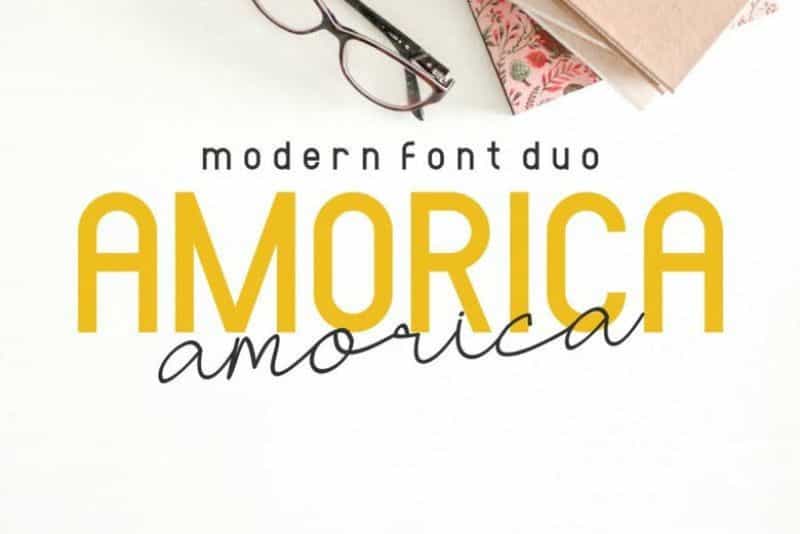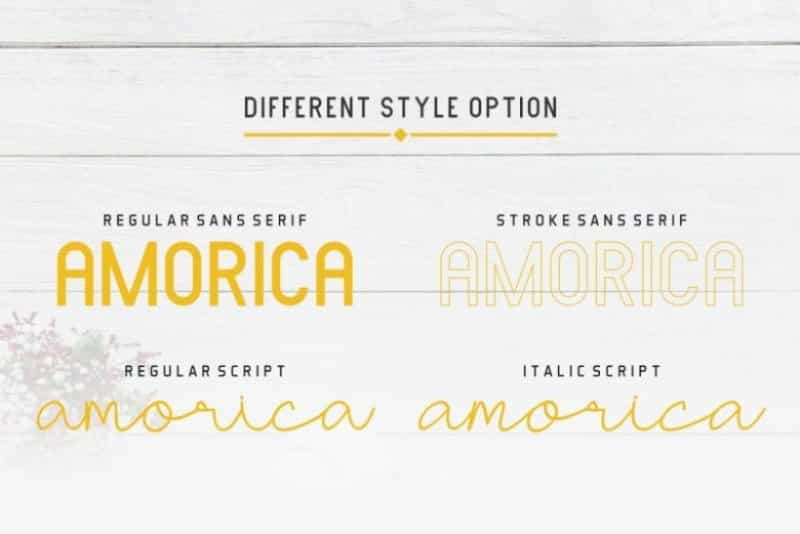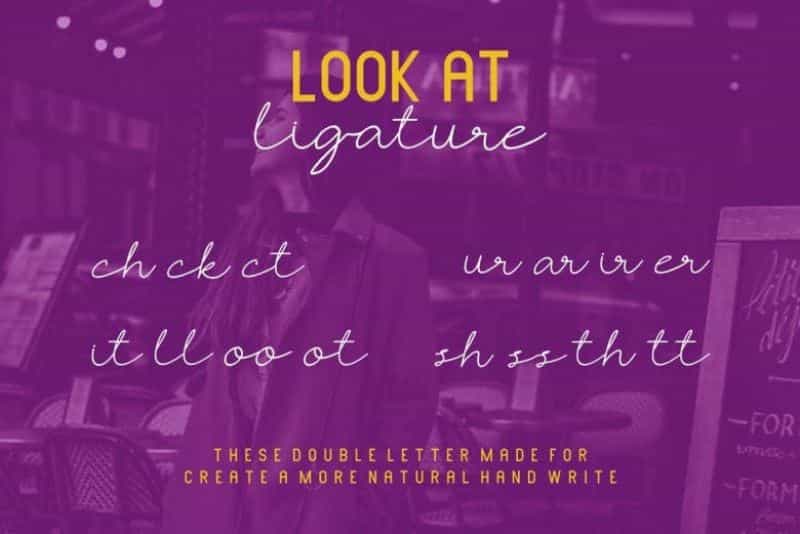
Discover AMORICA Font Duo, part of the Sans Serif Handwritten collection—a versatile and unique font perfect for adding a personal touch to your projects. Download it for free and enjoy crafting designs with style, from invitations to social media posts. This font is available exclusively for personal use, giving you the freedom to create without limits. Unlock your creativity with AMORICA Font Duo today!
Introducing our newest font : AMERICA !You’ll get 4 (FOUR) fonts : Without, Stroke, Script and Italic Script. This is a modern script handwriting font with the style of signature. It is a new, elegant and natural looking symbol. Keep in mind that, you’ll get 4 FOUR fonts by buying only one this font.